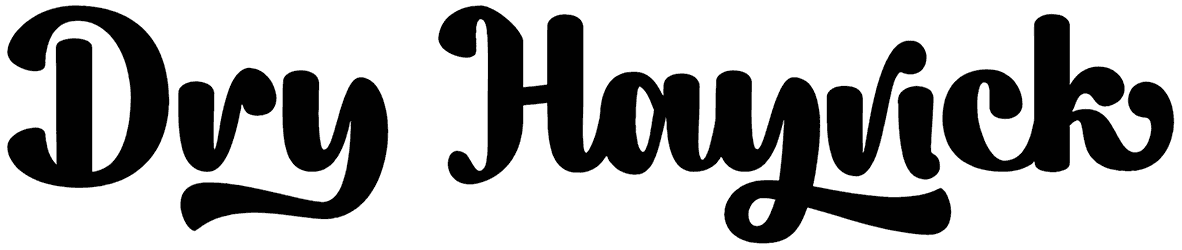
Dry Hayrick Font
Since choosing a perfect font is not as easy as it seems, we have provided a long list of various products, including a magical script font, the same as the Dry Hayrick, that comes with rounded letters and looks insanely perfect for a wide set of creative ideas.
Considering its marvelous ability to evoke a sense of dynamic, personalization, jauntiness, or vivacity in the audience’s minds, the lack of numbers will never turn into a serious problem.
Dry Hayrick is a display font that was fully thought out to easily meld inside your designs. An excellent
choice to add the right amount of playfulness. This custom-made font was specifically designed to fit
whatever you need! The best choice for your logo, book cover, poster, t-shirt, branding, and advertisement needs.